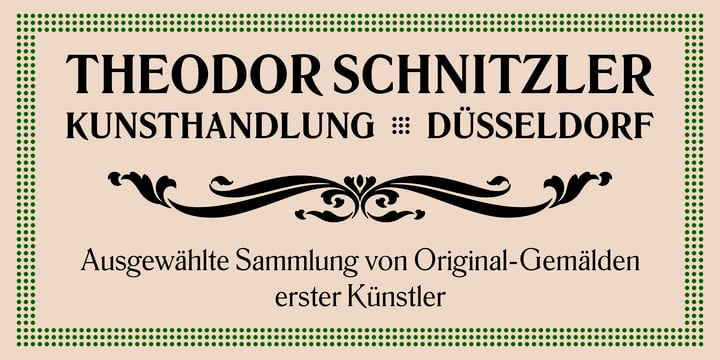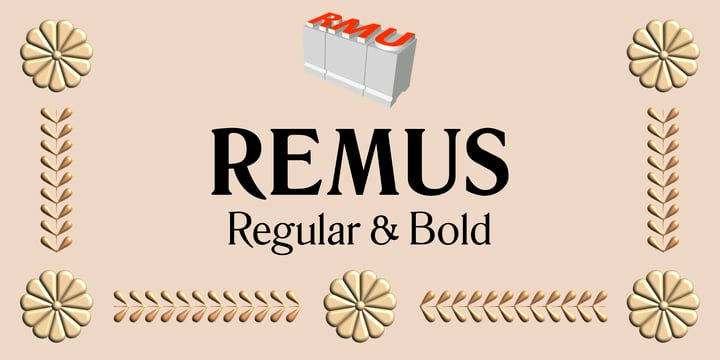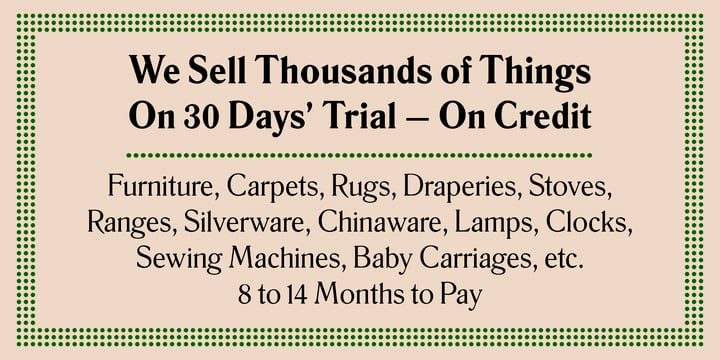
Remus Font Family
Remus Font FamilyBoth fonts of the Remus family are complete redesigns of turn-of-the-century fonts. The regular style is based upon an inhouse design of Schelter & Giesecke in 1889, called Romanisch. This font was adopted by other German foundries and slightly modified and a bold version was added. Due to their proportions, these fonts fit perfectly into narrow columns, and still they are very legible.